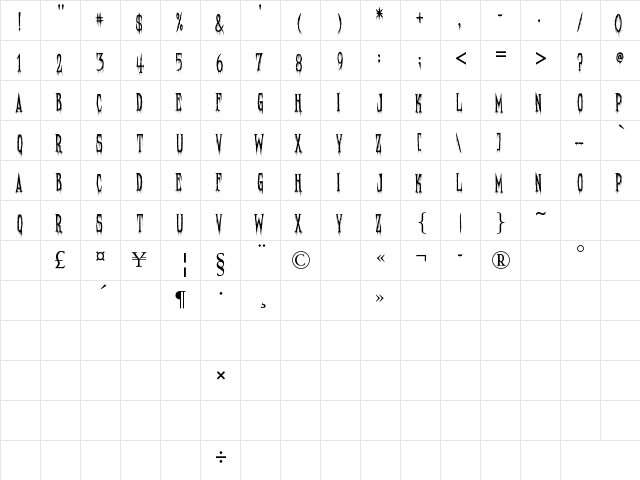
Needleteeth Creepy Creepy
| Style | Creepy |
| Designer | Chad Savage |
Design Context for Needleteeth Creepy Typeface
Needleteeth Creepy leans into the macabre with letterforms designed to disturb and intrigue in equal measure.
Ideal for Halloween projects, horror film titles, haunted house signage, and dark editorial design.
Font Pairing: Pair with a clean neutral sans-serif for body copy to let Needleteeth Creepy's character lead without overwhelming the composition.
Pro Tip: Needleteeth Creepy works best as a headline or focal element. Pair it against plain, neutral body text to amplify the contrast.